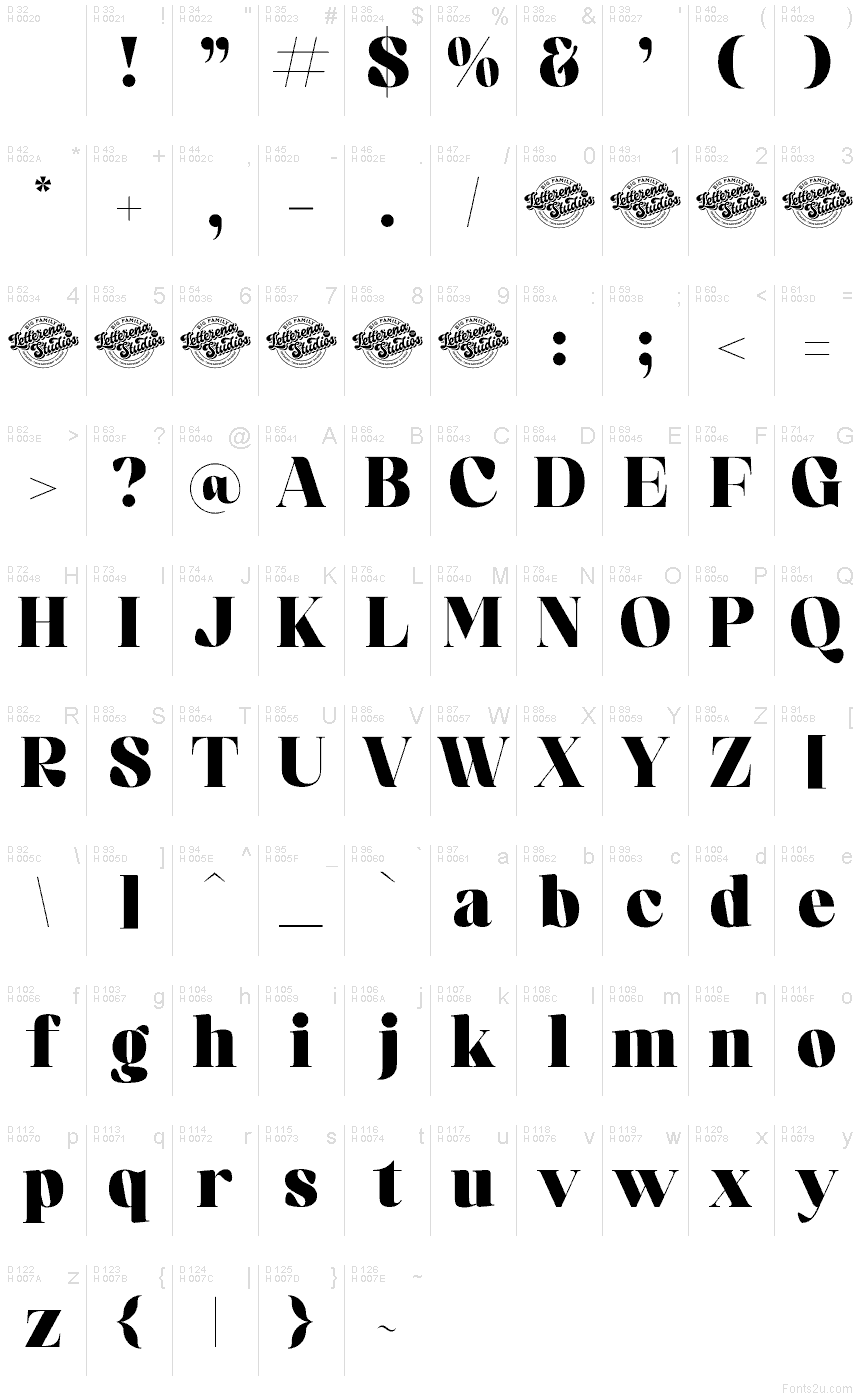
Kindora Bufferly DEMO VERSION
Kindora Bufferly font by Letterena Studios is a free serif font that leans into bold, inky weight with sculpted, blocky serifs and tight rhythm. Its defining move is the dramatic thick-to-thin flow that feels both luxurious and grounded, like letterforms carved with a sharp chisel. The result reads loud and confident without losing polish, giving titles a rich, tactile presence.
Using Kindora Bufferly, headlines snap into focus, logos gain gravitas, and packaging or labels pick up a boutique vibe. It also shines on magazine covers, posters, brand campaigns, and book jackets where you need impact at a glance. Pair this free font with a clean grotesk or neutral sans for body copy, and let Kindora Bufferly sit a size or two larger to show off its sculpted curves.